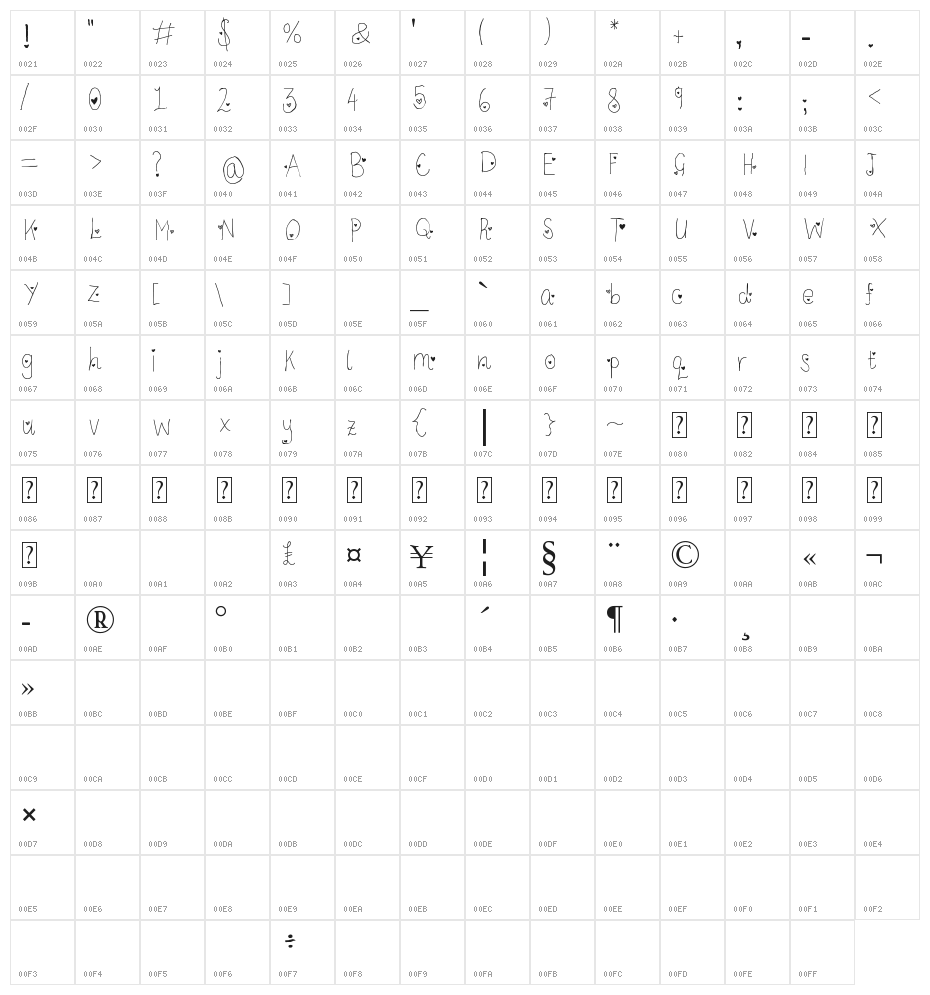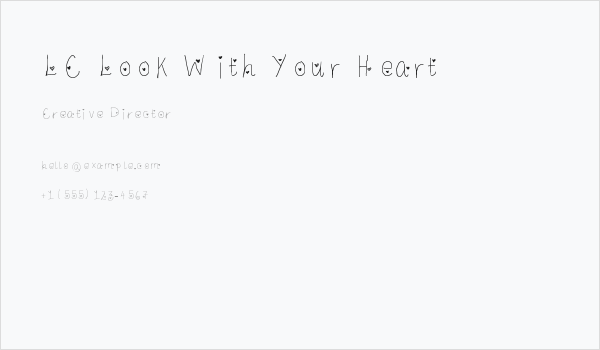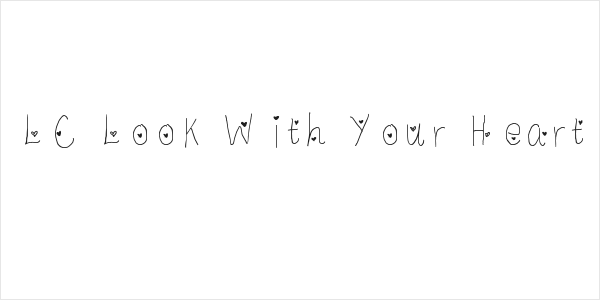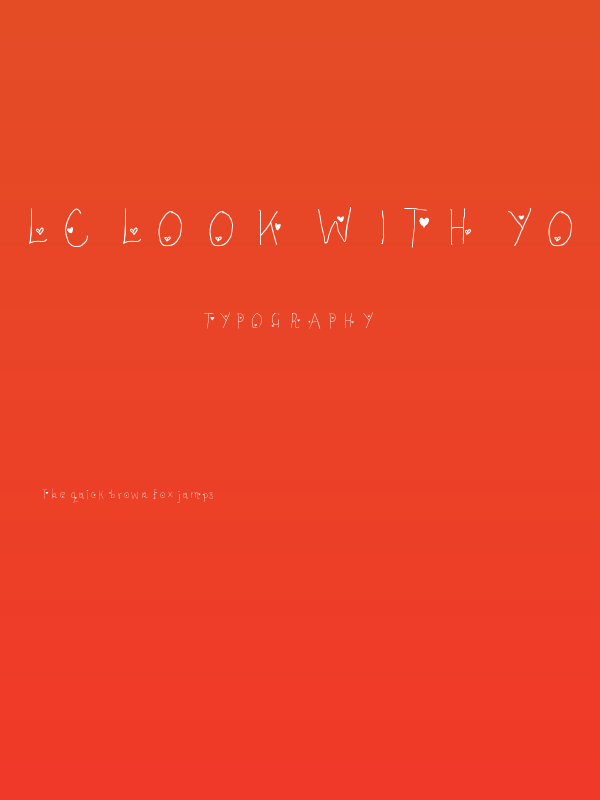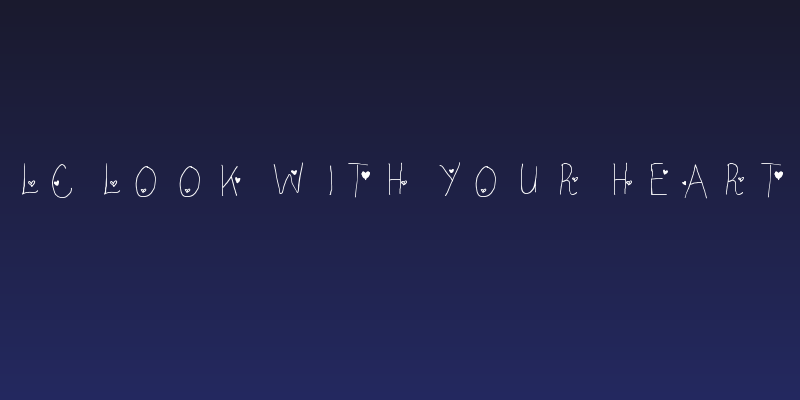
LC Look With Your Heart Font
LC Look With Your Heart Description
This whimsical and playful font features a unique design where each character is adorned with a small heart, adding a touch of charm and romance. The letters are hand-drawn with a casual, slightly irregular style, giving them a friendly and approachable feel. The strokes are thin and delicate, with a consistent line weight throughout. The inclusion of hearts within the characters makes this font particularly suitable for themes of love, affection, and creativity. It maintains a balance between being decorative and legible, making it versatile for various design applications.
| Overall Style | Whimsical, Playful |
| Use Case | Headlines, Logos, Decorative text |
| Proposed Projects | Ideal for greeting cards, wedding invitations, love-themed posters, and playful branding projects. |